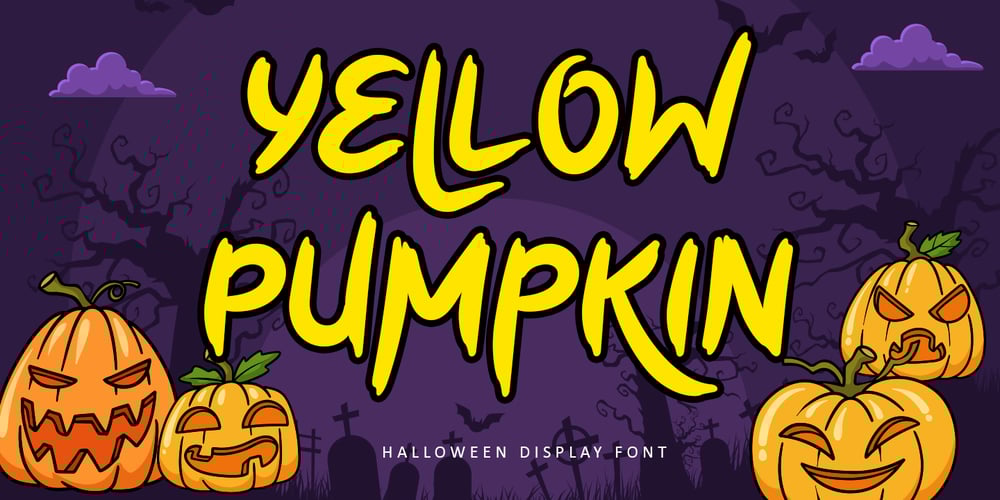
Yellow Pumpkin Font Family was designed by Bayu Suwirya and published by Illushvara. Yellow Pumpkin contains 1 styles and family package options. Hello,Yellow Pumpkin is a thick-lettered, brushed and spooky display font. It is perfectly suitable for any Halloween-related project or crafty idea! The only limit is your imagination.Yellow Pumpkin is PUA encoded which means you can access all glyphs and swashes with ease!Features : Uppercase and lowercase Numbers Symbols Alternates Multilingual Accent If you have any question, don’t hesitate to contact me. Happy Designing !!!Thank You,Illushvara Design